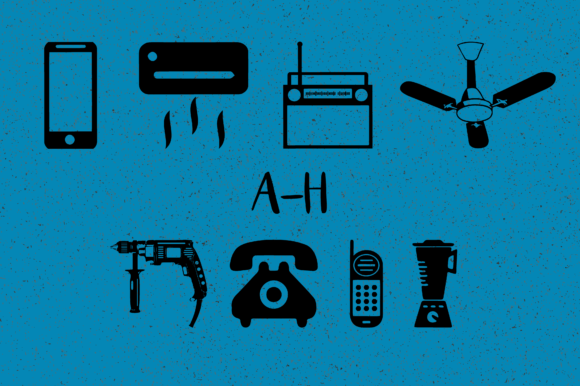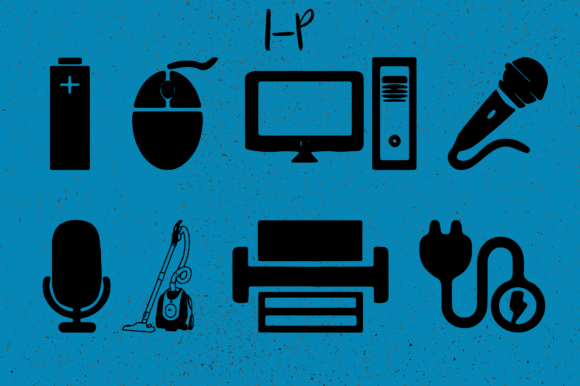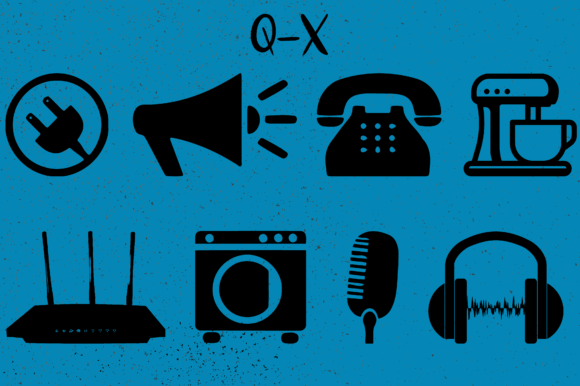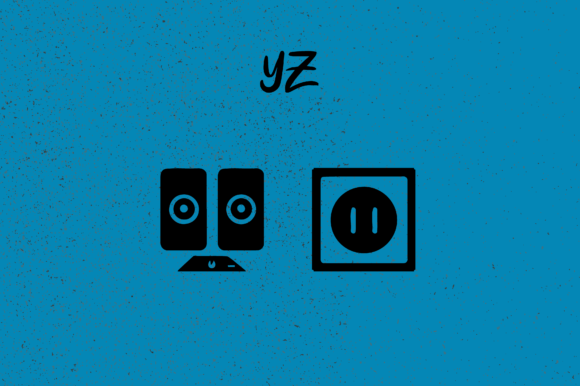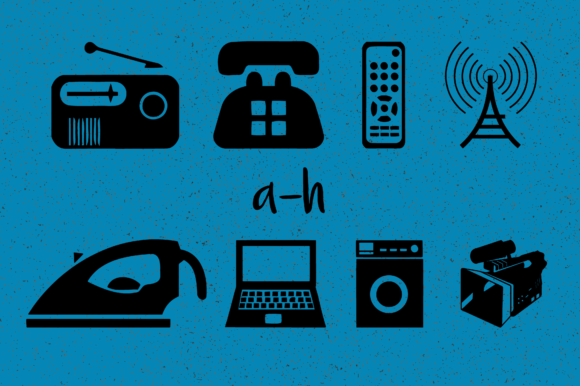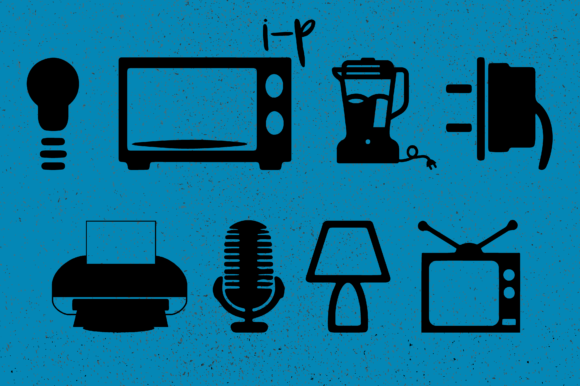
Introducing Eletronica Font: Revolutionizing Icon Design with a Unique Dingbats Typeface
Are you a designer, crafter, or DIY enthusiast looking for a creative way to add electronics-related icons to your projects? Look no further than Eletronica Font, a game-changing dingbats typeface that lets you generate a wide variety of unique icons with just a few keystrokes. In this article, we’ll dive into the world of Eletronica Font and explore its endless possibilities for designers, crafters, and anyone looking to add a touch of electronics flair to their work.
What is Eletronica Font?
Eletronica Font is a specially designed dingbats typeface that allows users to create electronics-related icons by typing capital and small letters, as well as numbers. This innovative font is perfect for anyone who wants to add a professional touch to their designs without spending hours searching for the right icons. With Eletronica Font, you can easily generate icons for circuit boards, wires, microchips, and many other electronics-related elements.
Key Features of Eletronica Font
• Unique Dingbats Typeface: Eletronica Font boasts a distinctive dingbats design that sets it apart from traditional fonts. Each character is carefully crafted to represent a specific electronics-related icon, making it easy to create cohesive and recognizable designs.
• Wide Range of Icons: With Eletronica Font, you can generate a vast array of icons by typing capital and small letters, as well as numbers. From simple shapes to complex symbols, this font has got you covered.
• Scalability: Eletronica Font is designed to be scalable, ensuring that your icons look great in any size or resolution.
Applications of Eletronica Font
Eletronica Font is perfect for a wide range of applications, including:
• Graphic Design: Add a touch of electronics flair to your brochures, flyers, and posters with custom icons generated using Eletronica Font.
• Crafting: Use Eletronica Font to create custom icons for your craft projects, such as scrapbooking, card making, and DIY electronics.
• Web Design: Enhance your website with custom electronics-related icons generated using Eletronica Font.
• Education: Create engaging educational materials, such as textbooks, workbooks, and presentations, with custom icons that illustrate complex electronics concepts.
Tips and Tricks for Getting the Most out of Eletronica Font
Here are some tips and tricks to help you get the most out of Eletronica Font:
• Experiment with Different Characters: Try typing different capital and small letters, as well as numbers, to see the wide range of icons you can generate with Eletronica Font.
• Combine Icons: Combine multiple icons generated using Eletronica Font to create complex and detailed designs.
• Adjust Size and Color: Experiment with different sizes and colors to add depth and visual interest to your icons.